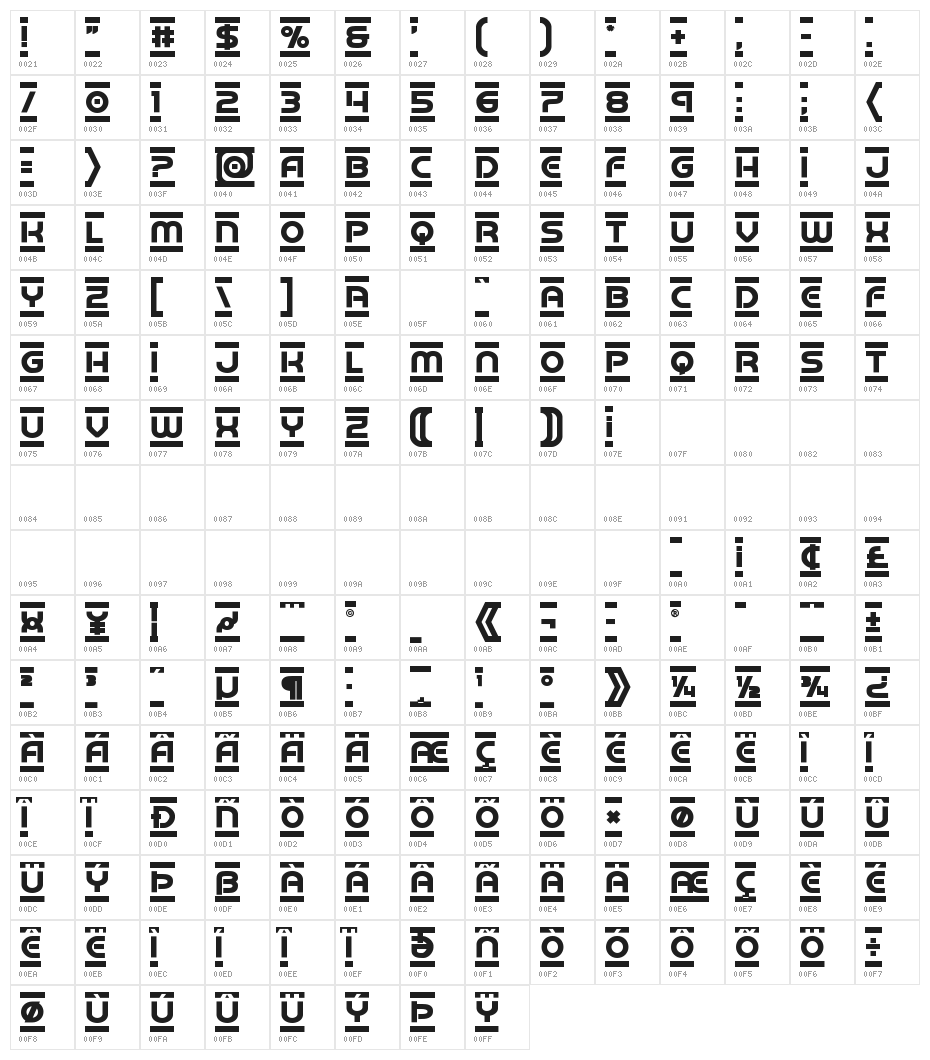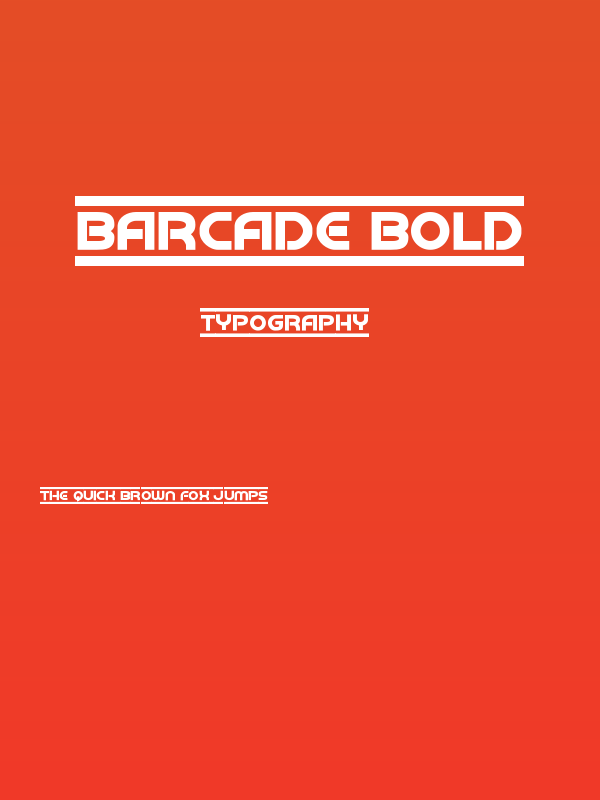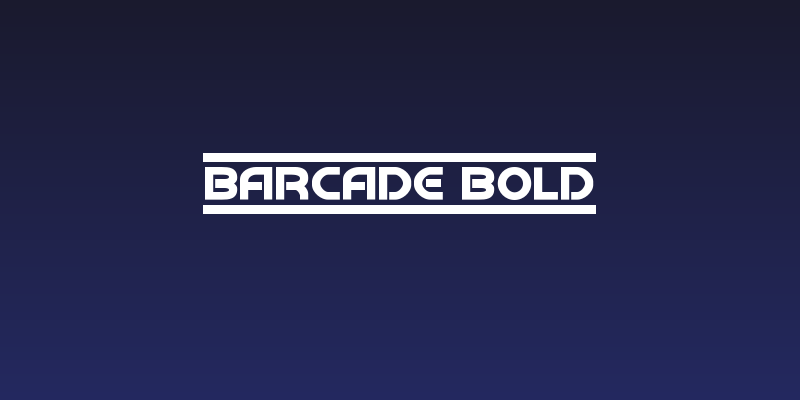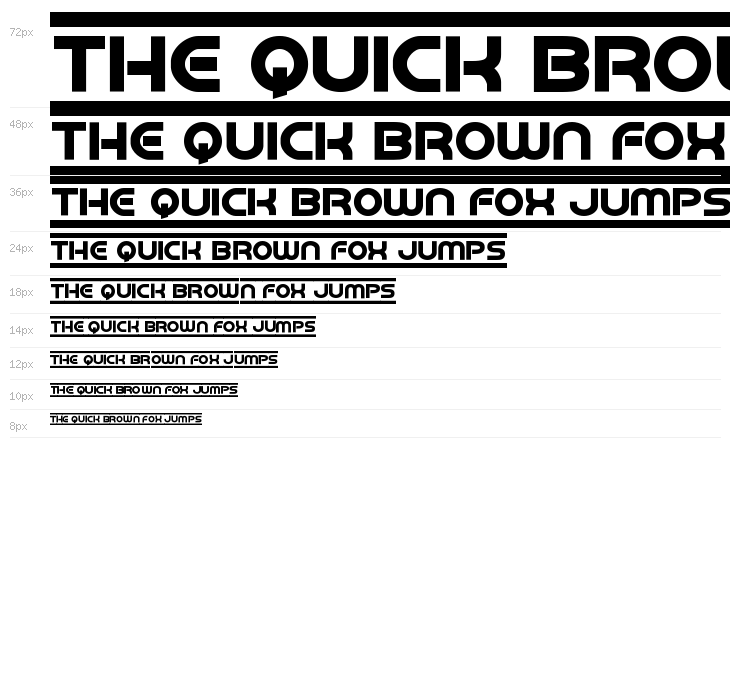
Barcade Bold Font
Barcade Bold Description
This font features a bold and geometric design with a distinctly modern and futuristic aesthetic. The characters are constructed with thick, uniform strokes that create a strong visual impact. The rounded edges and consistent line thickness contribute to a cohesive and streamlined appearance. The uppercase letters are particularly striking, with a block-like structure that emphasizes their boldness. The numerals and special characters maintain the same stylistic elements, ensuring uniformity across all glyphs. This font is ideal for projects that require a contemporary and assertive look.